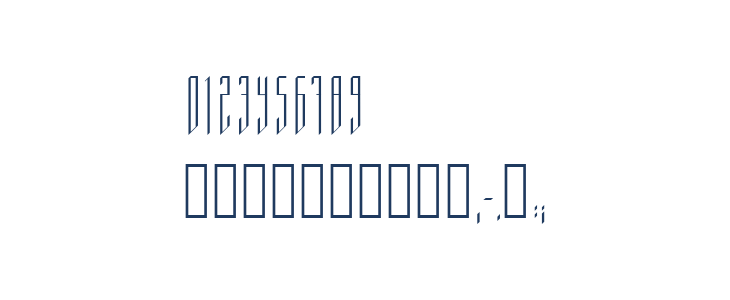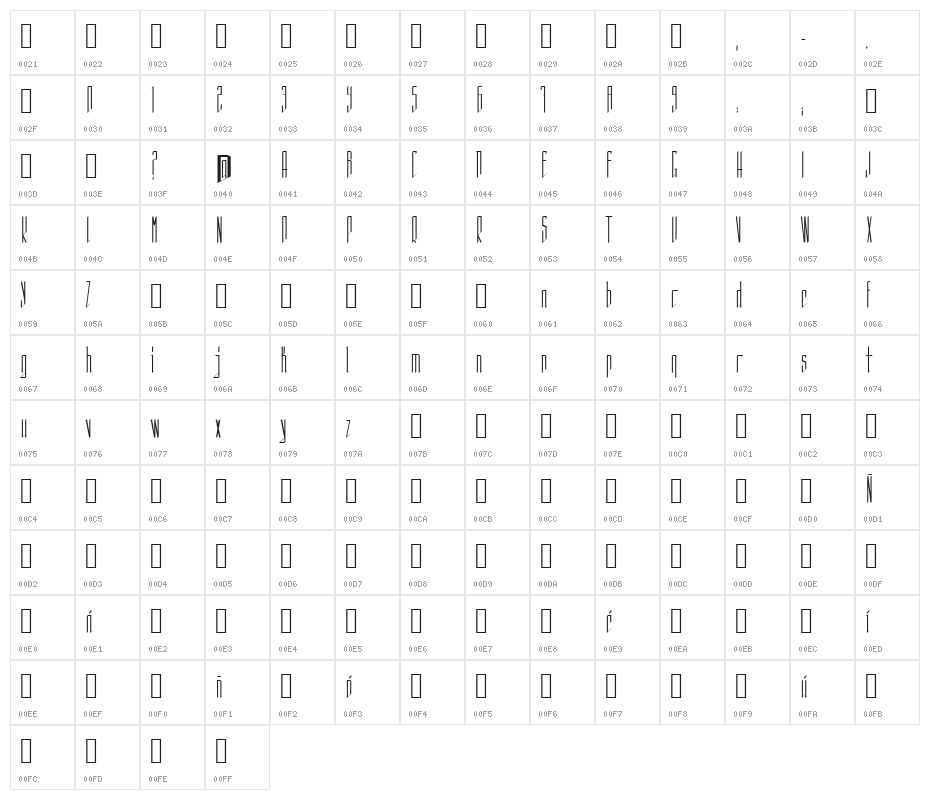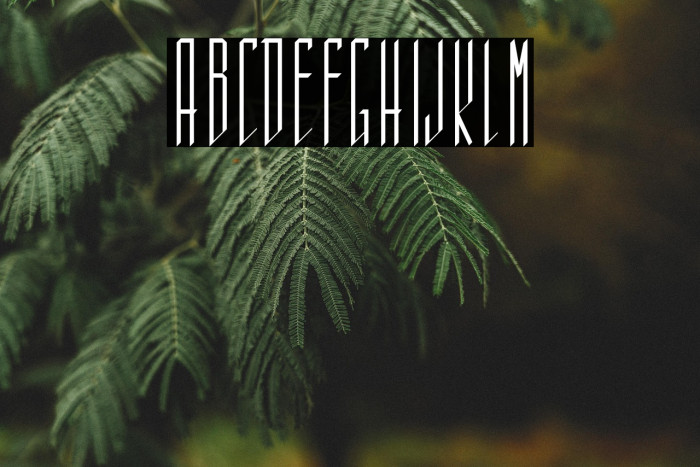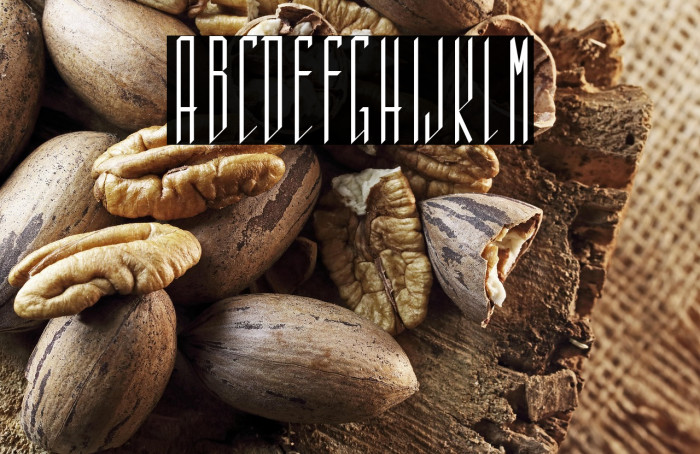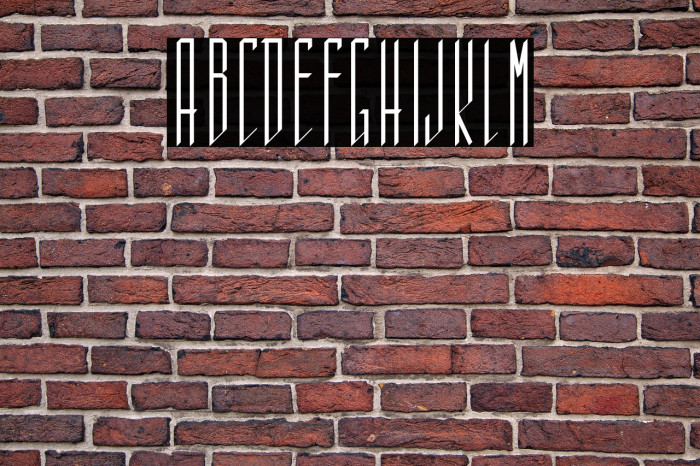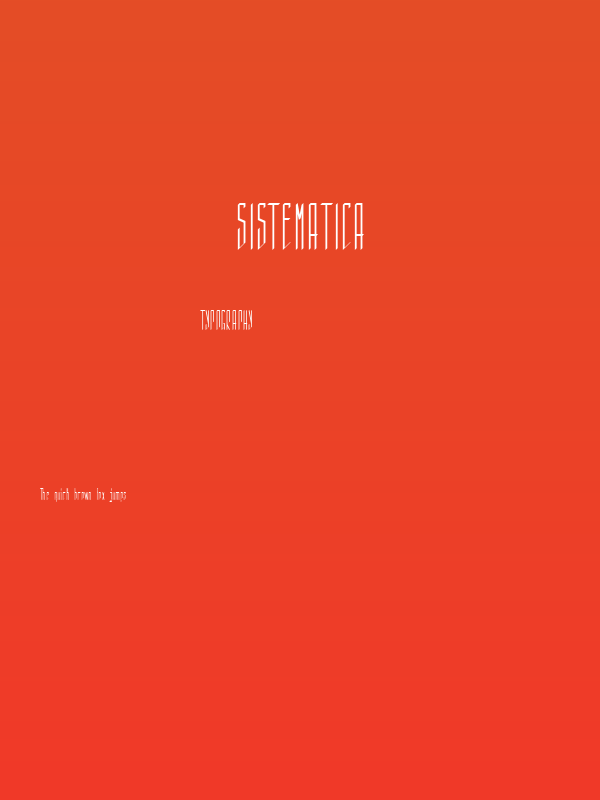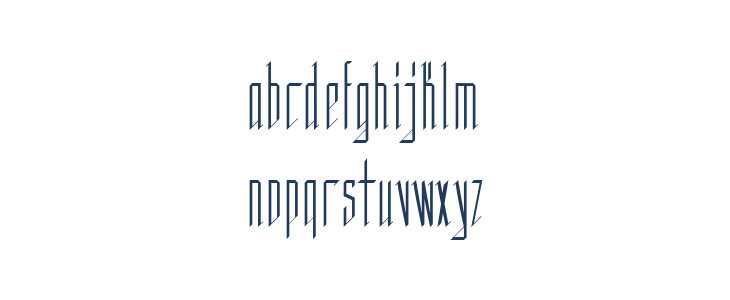
Sistematica Font
Sistematica Description
This font features a distinct and modern design with elongated, narrow characters that exhibit a sharp, angular style. The uppercase and lowercase letters maintain a consistent height, creating a uniform appearance. The numbers follow the same elongated form, enhancing the cohesive look. The special characters are designed with similar angularity, ensuring they blend seamlessly with the rest of the typeface. The overall design is sleek and contemporary, making it suitable for projects that require a futuristic or avant-garde aesthetic. The font's unique style is characterized by its high contrast in stroke thickness, with thin vertical lines and slightly thicker horizontal strokes, adding to its dynamic appearance.
| Overall Style | Modern, Futuristic |
| Proposed Projects | Ideal for futuristic branding, sci-fi book covers, modern art posters, and innovative product packaging. |